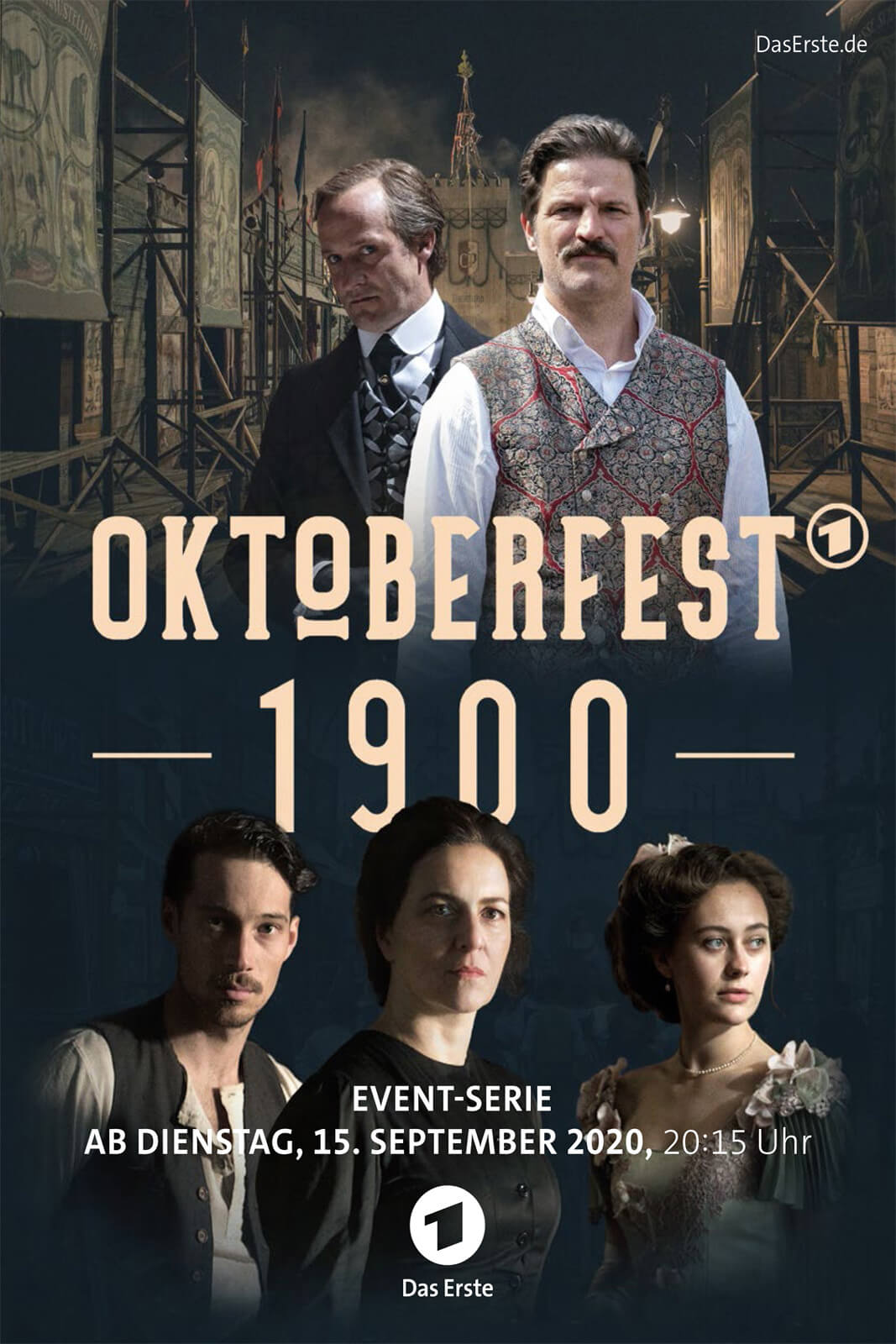
Oktoberfest 1900 Font
Fonts in UseOktoberfest 1900, is a German historical drama miniseries set in Munich during the late 19th century. The series follows the intense rivalry between two brewery families as they fight for control over the city's lucrative beer market amidst the political and social upheaval.
The TV series features Grodna, a typeface designed by Romanian artist Sztuchlak Gergő, inspired by the Art Nouveau posters prevalent in Oradea, a city regarded as the hub of the movement during the early 1900s.